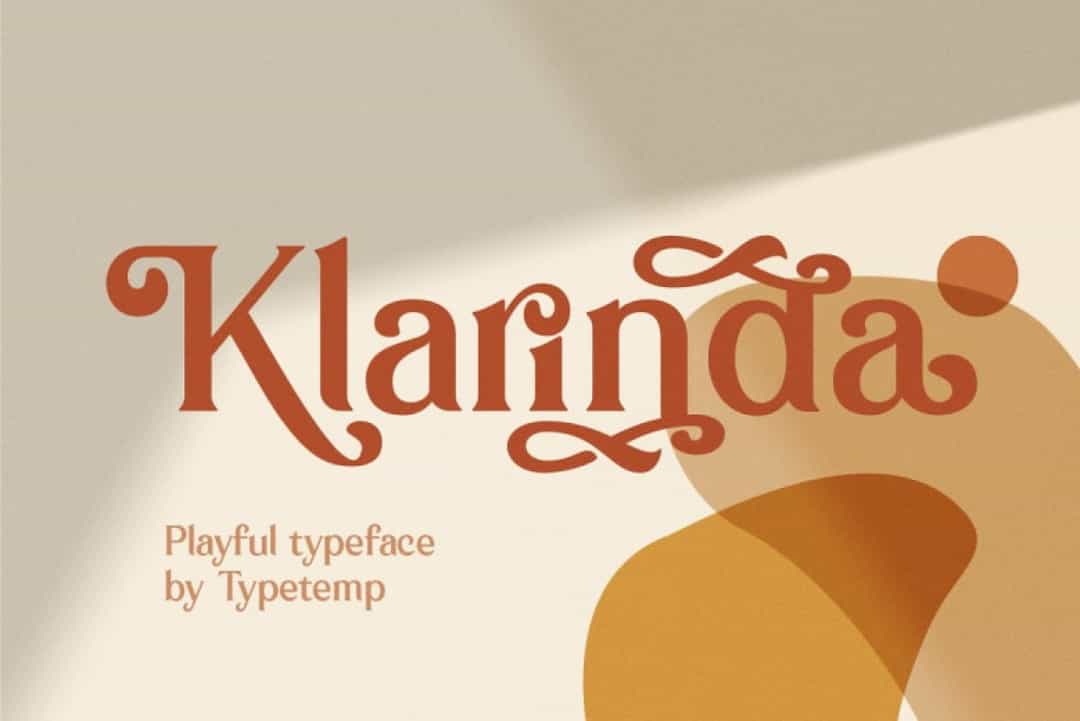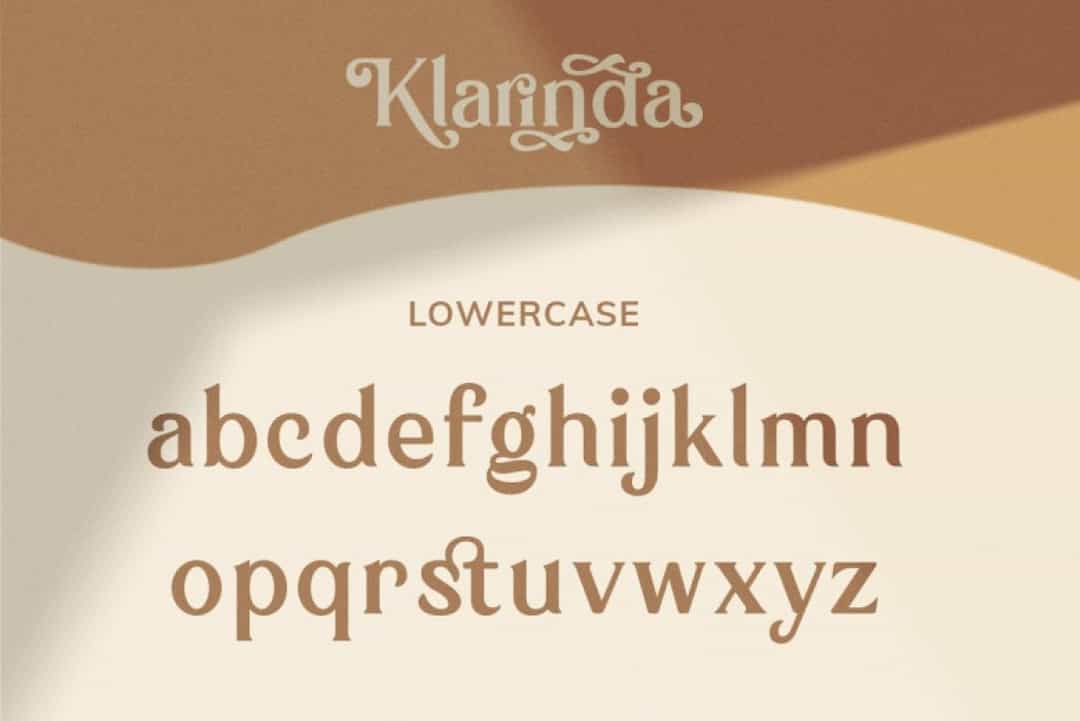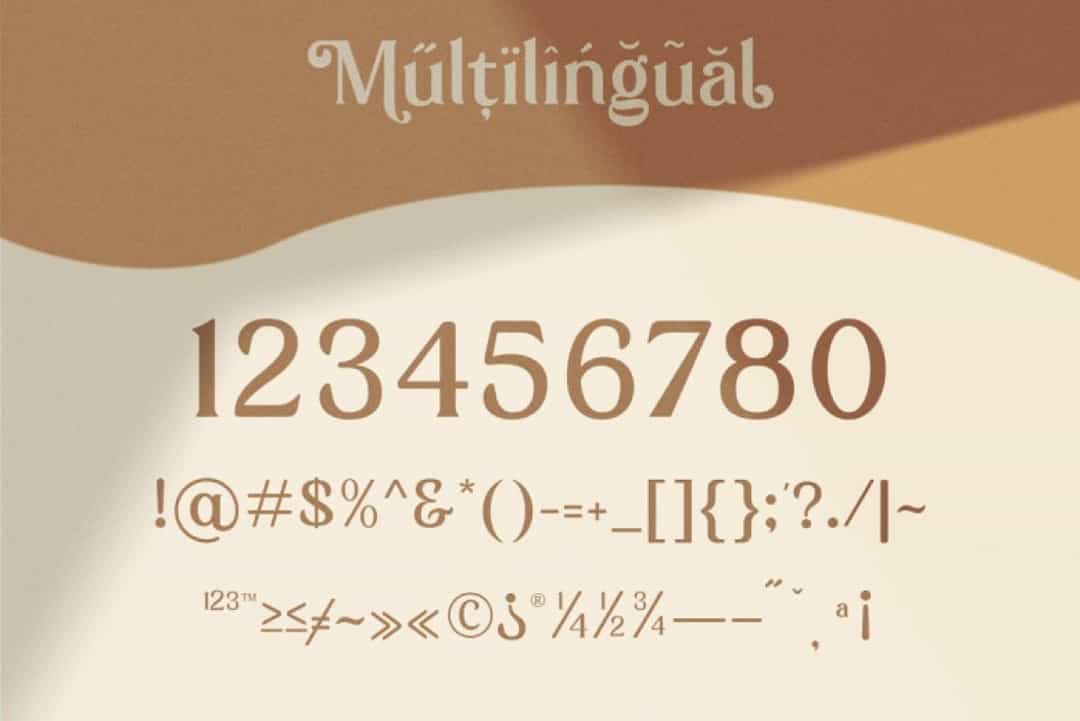
Discover Klarinda Font, part of the Serif collection—a versatile and unique font perfect for adding a personal touch to your projects. Download it for free and enjoy crafting designs with style, from invitations to social media posts. This font is available exclusively for personal use, giving you the freedom to create without limits. Unlock your creativity with Klarinda Font today!
Klarinda is a delicate serif font suitable for stunning logos, quotes, and articles on fashion and lifestyle blogs. Let me tell you, Klarinda is used in branding projects, magazine images, wedding invitations and the list goes on!